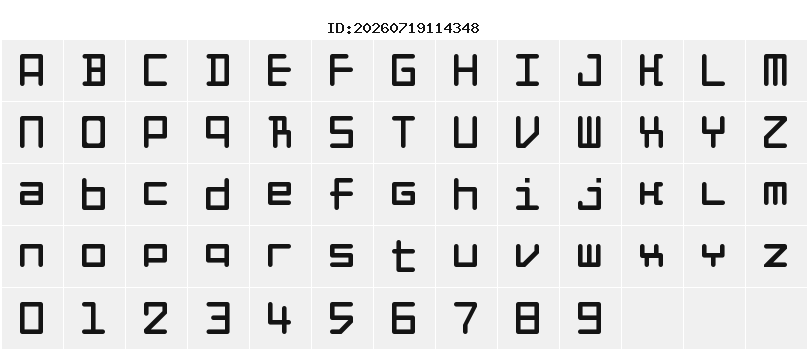
Code Squared Preview
• Font Name: Code Squared
• Designer: GuyStruct
• Description: “Code Squared” was built with FontStruct Designer description:
A typical monospaced font, 5x7. Somewhat, 80s style.
About Code Squared.ttf
Code Squared.ttf is a modern, elegant sans-serif font designed for ultimate readability and visual harmony. Perfect for branding, headlines, web design, and print materials.